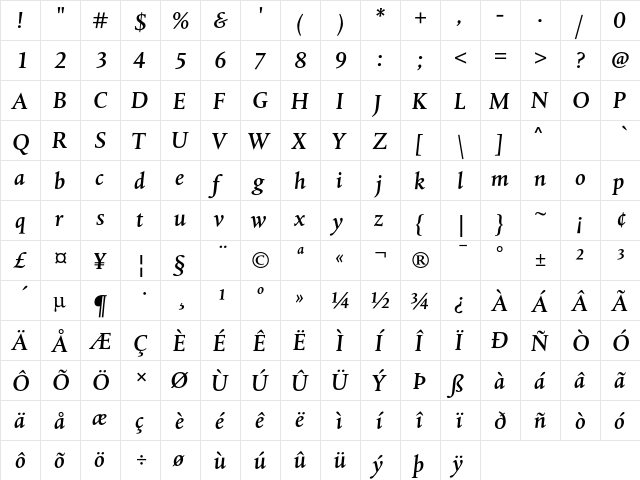
DTLAlbertinaTMedium Italic
Design Context for DTLAlbertinaTMedium Typeface
DTLAlbertinaTMedium is a composed and adaptable typeface that performs quietly and consistently across a wide range of design contexts. The slanted form adds forward momentum and visual energy.
Pro Tip: Use DTLAlbertinaTMedium for emphasis, pull quotes, and subheadings where its slanted energy can add rhythm to the layout.